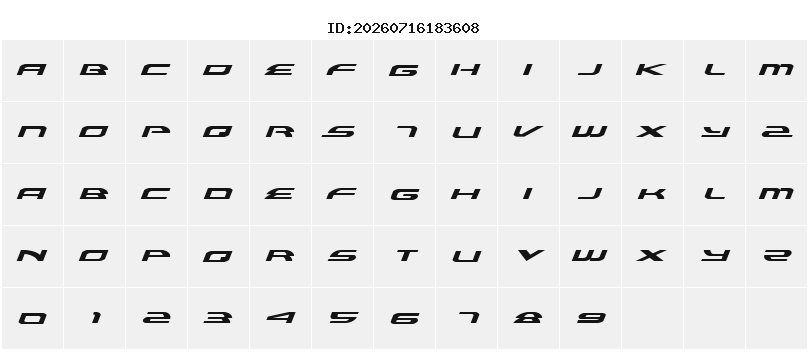
Alexis Expanded Italic Preview
• Font Name: Alexis Expanded Italic
• Font Style: Expanded Italic
• Full Font Name: Alexis Expanded Italic
• PostScript Name: AlexisExpandedItalic
About Alexis Expanded Italic.ttf
Alexis Expanded Italic.ttf is a modern, elegant sans-serif font designed for ultimate readability and visual harmony. Perfect for branding, headlines, web design, and print materials.